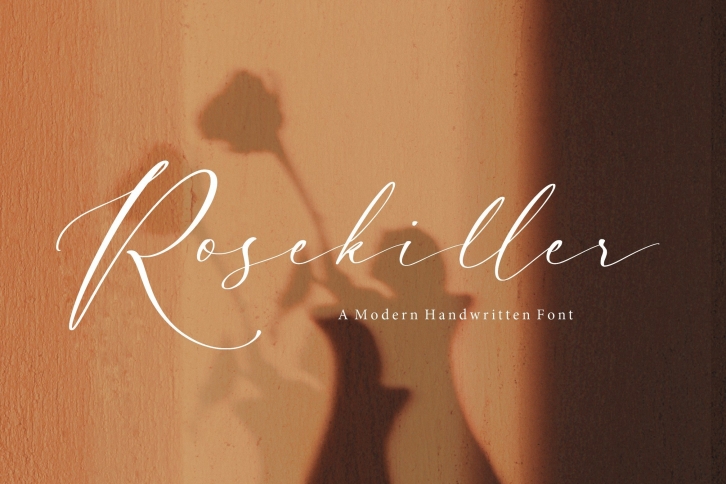
Rosekiller Modern Handwritten is a beautiful font that was designed by Letterative Studio. It's a great choice for designers and creatives who need such a font. It was released on July 1, 2022 and the file size is 3.64 MB. Rosekiller Modern Handwritten may give a more youthful, expressive and casual look to your project. It is a very beautiful, refined, elegant, and high-quality font.